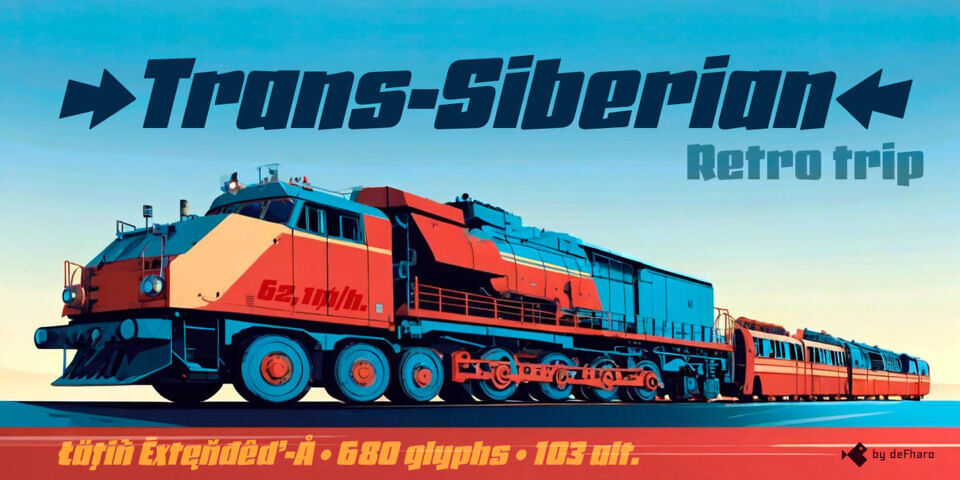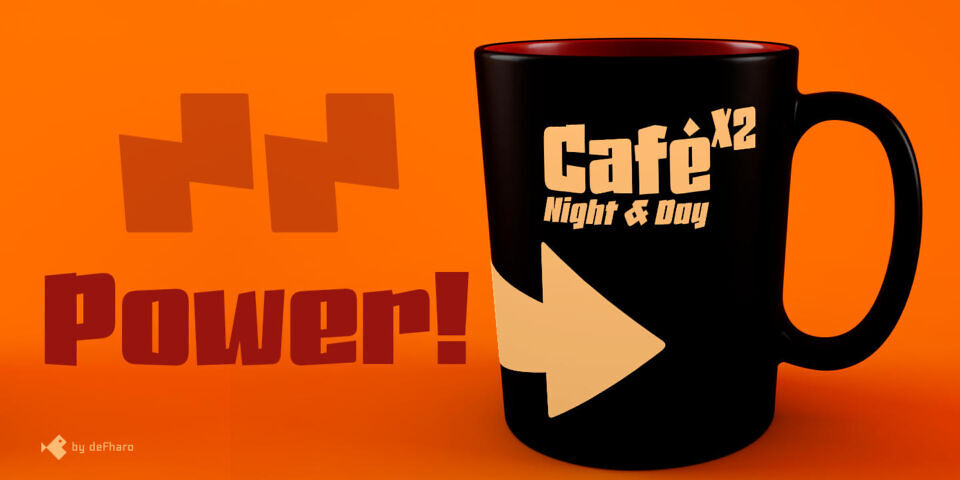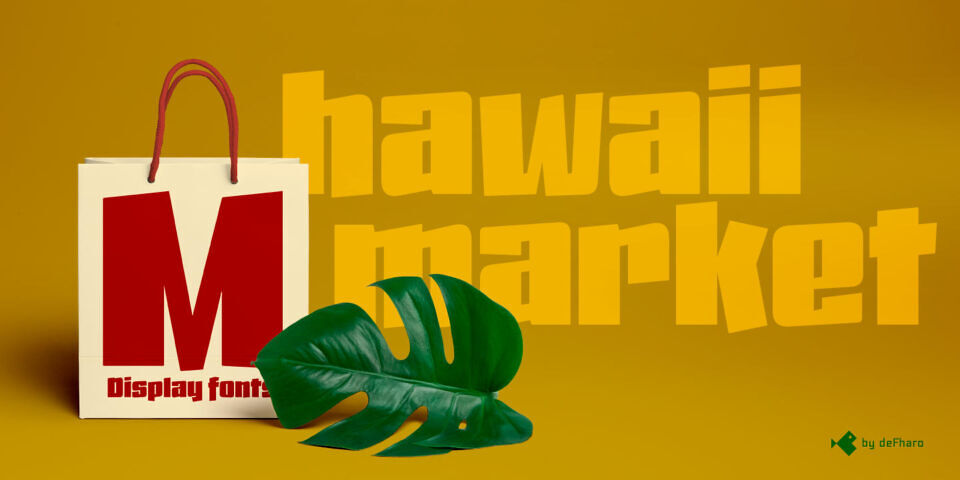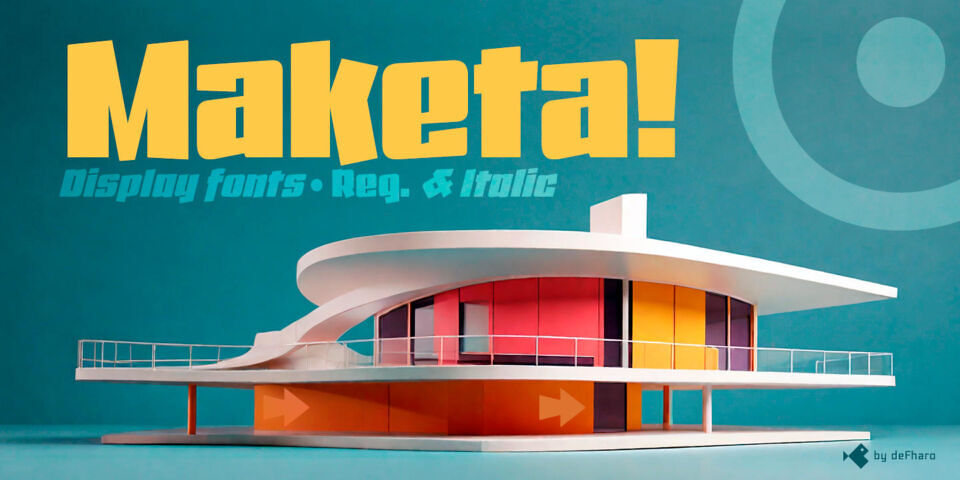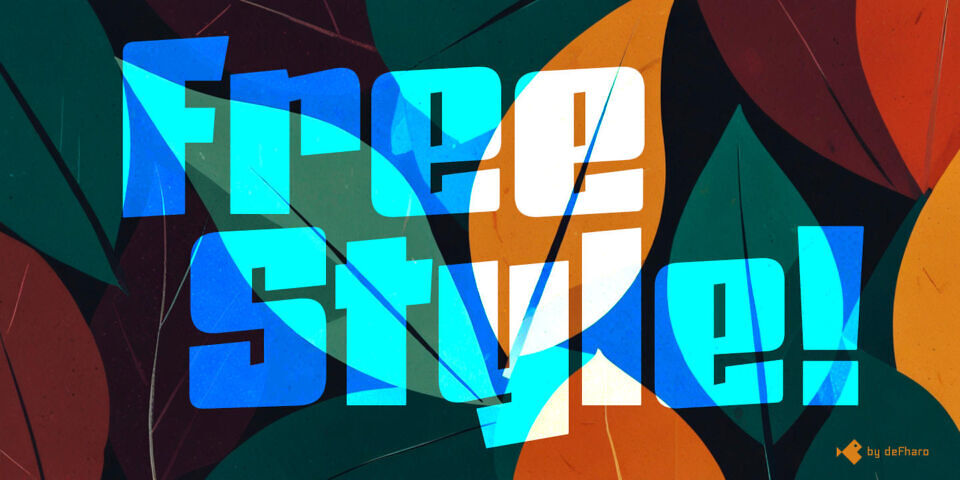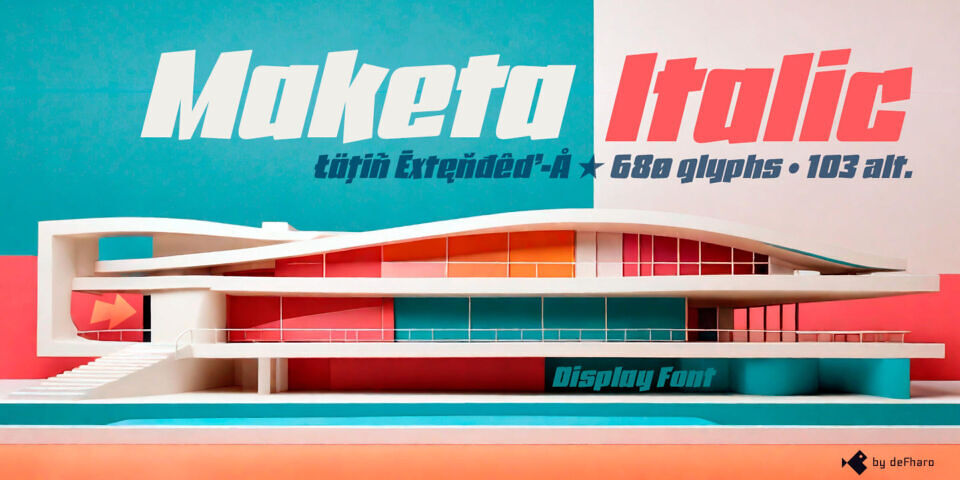
Maketa is a typeface that combines impact, dynamism, and sophistication. Its stroke evokes an aesthetic somewhere between calligraphy and modernist fonts.
It’s not just a typeface; it’s a statement of energy, movement, and fun: a celebration of vibrant, contemporary designs. With a robust structure, pronounced contrasts, and a fresh, positive style! Maketa is the perfect choice for projects seeking visual impact!